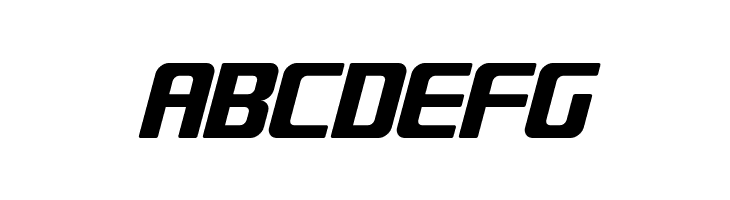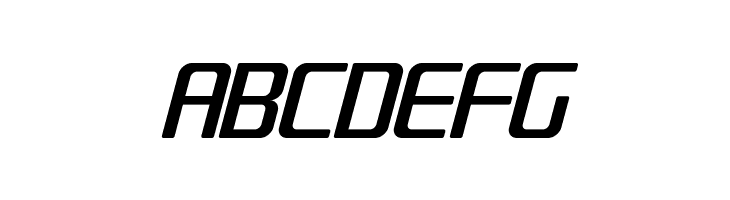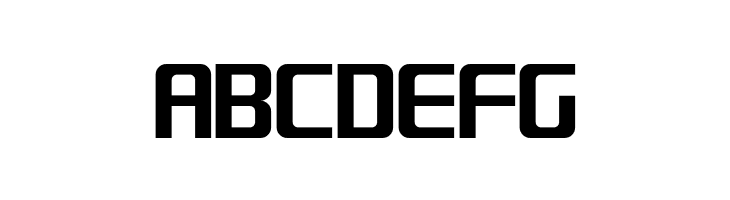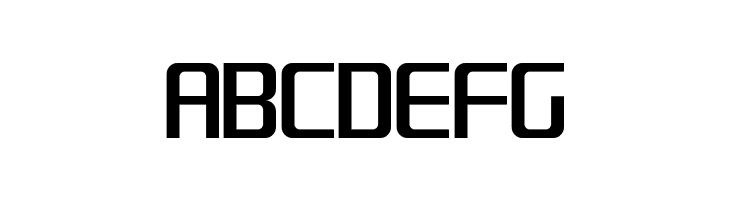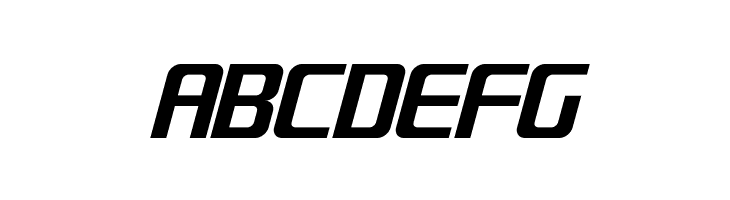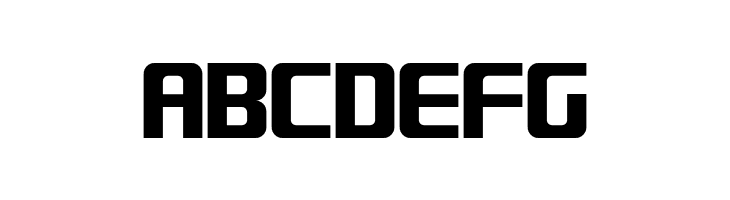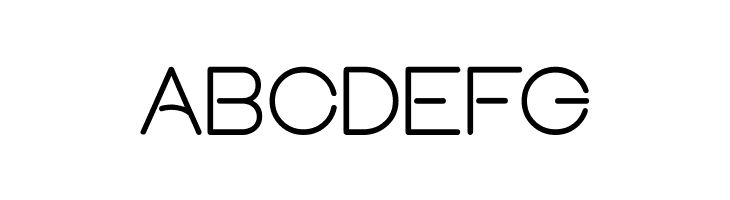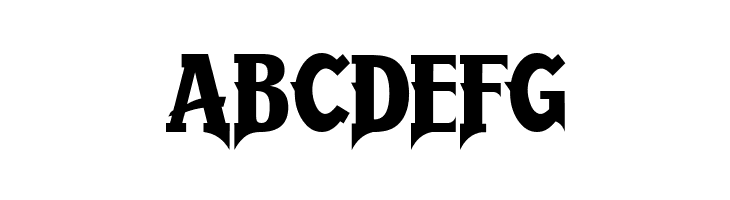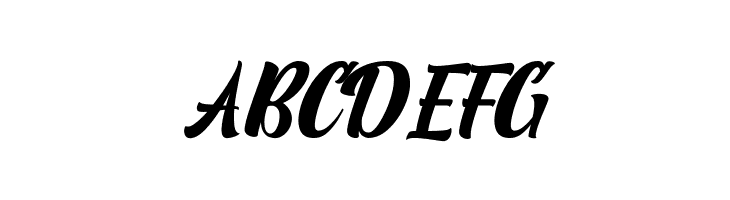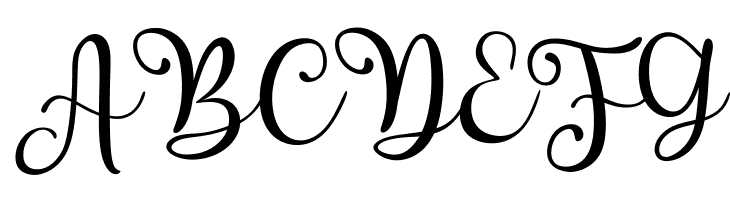
Resillia Font
A sophisticated script font with elegant, flowing cursive strokes.
Resitta Font
A dynamic and elegant script font with a handwritten appearance.
Resneo Font
A modern, minimalist font with tall, narrow characters and consistent stroke width.
Resolve-Regular Font
A bold, serif font with strong strokes and classic elegance.
ResotE Font
A bold, geometric font with strong, impactful letterforms.
ResotELavender Font
A bold, geometric font with a strong, modern presence.
ResotEPearl Font
A bold, modern font with thick, uniform strokes and a strong geometric influence.
ResotYg PERSONAL USE Font
A bold, rounded font with a strong, uniform presence.
Respawn Pro Regular Font
A bold, geometric font with a modern, tech-inspired design.
Respection Font
A dynamic and fluid script font with elegant, flowing curves.
Respecty Font
A playful, hand-drawn font with a whimsical and creative style.
Respondent PERSONAL USE ONLY Black PERSONAL USE ONLY Font
A dynamic and fluid script font with elegant, flowing letterforms.
Respondent PERSONAL USE ONLY Bold PERSONAL USE ONLY Font
A bold, elegant script font with a flowing, cursive style.
Respondent PERSONAL USE ONLY Light PERSONAL USE ONLY Font
An elegant, flowing script font with a natural handwriting style.
Respondent PERSONAL USE ONLY Medium PERSONAL USE ONLY Font
An elegant, flowing script font with a natural handwriting style.
Respondent PERSONAL USE ONLY Thin PERSONAL USE ONLY Font
A thin, elegant script font with a handwritten style.
ResscuDoffcu Font
An elegant, fluid script font with interconnected strokes and a dynamic slant.
Restaconme Font
A classic and elegant script font with flowing, cursive letters.
Restiane Personal Use Only !!! Font